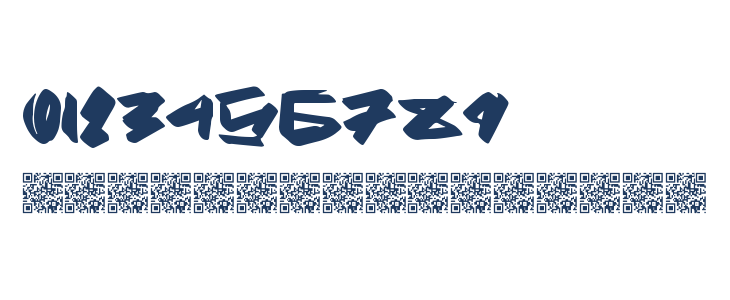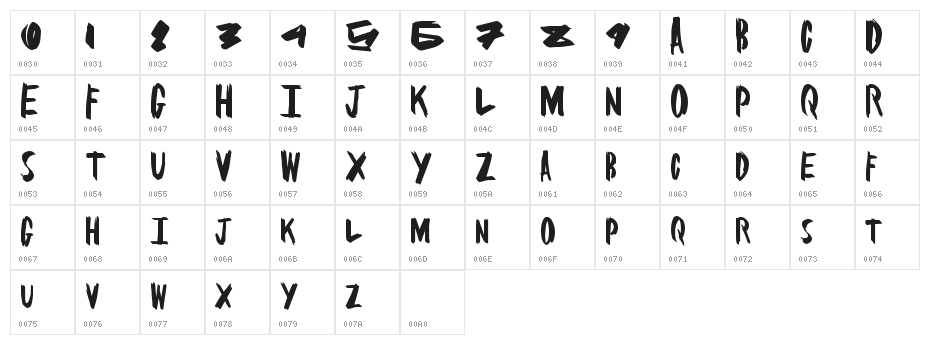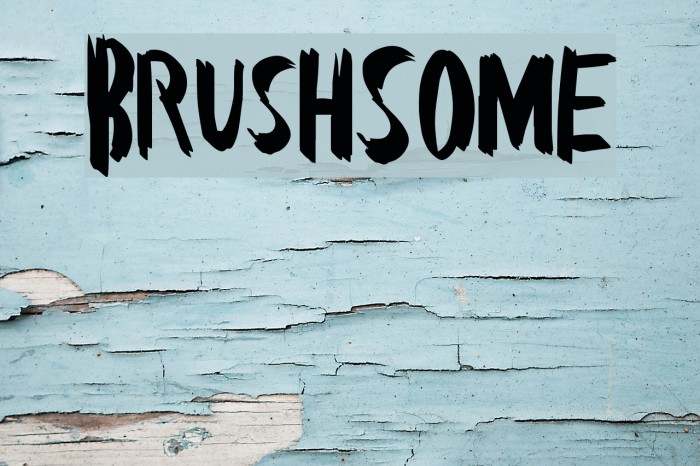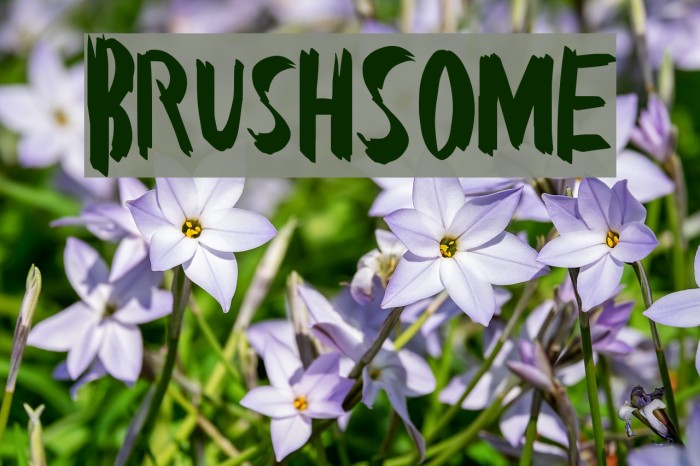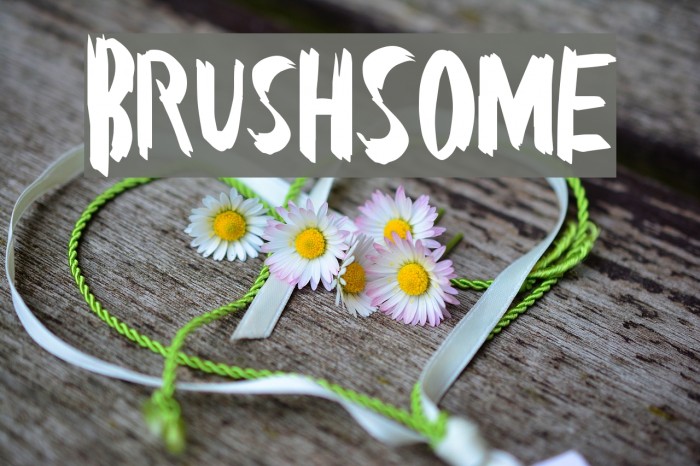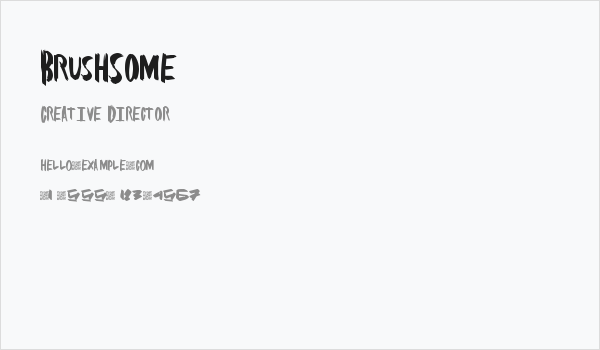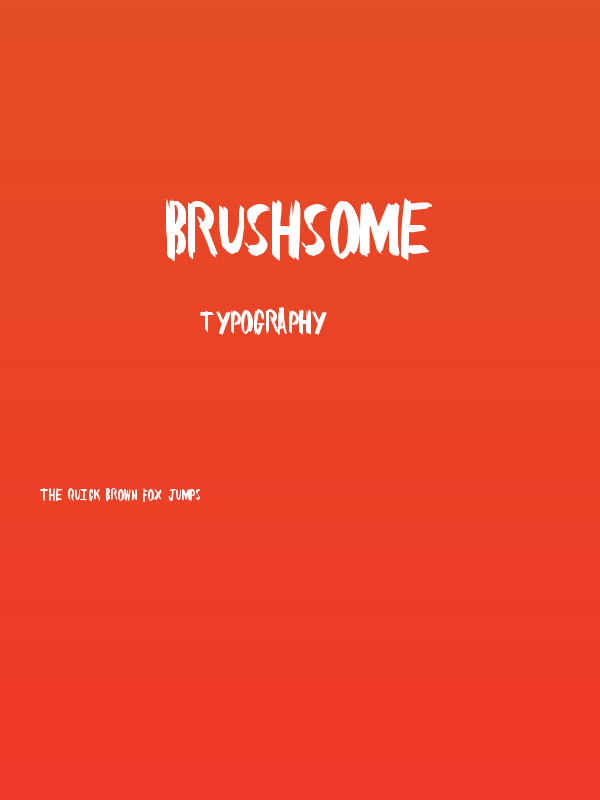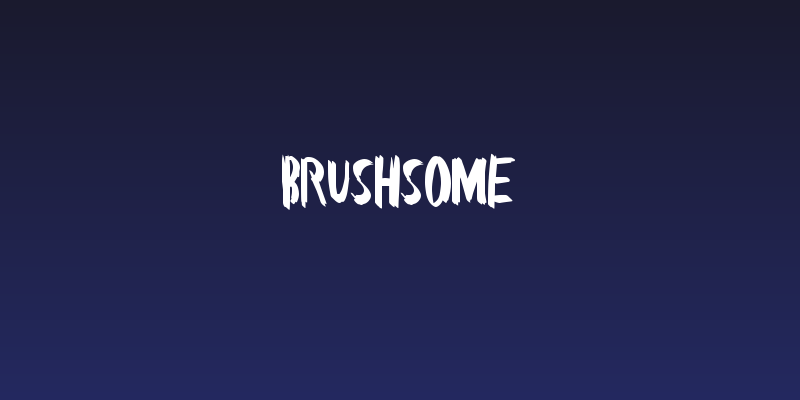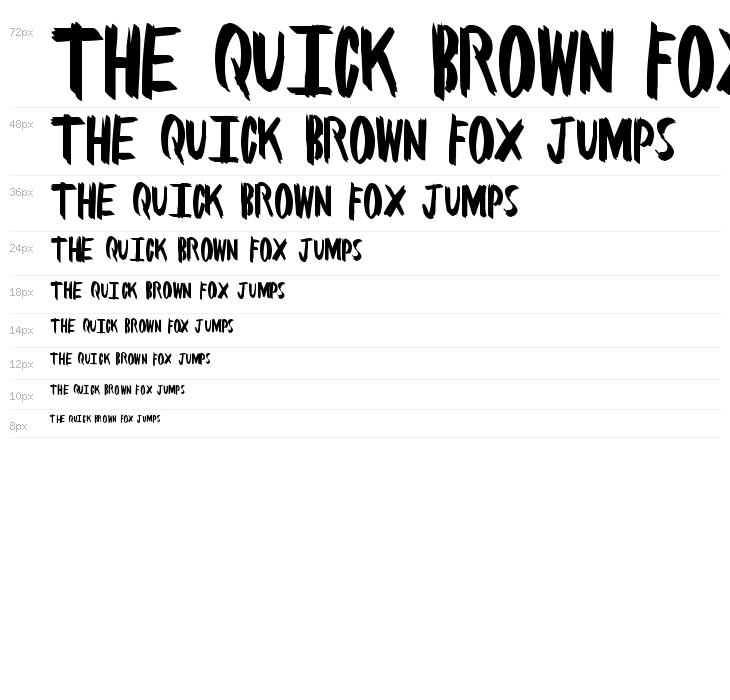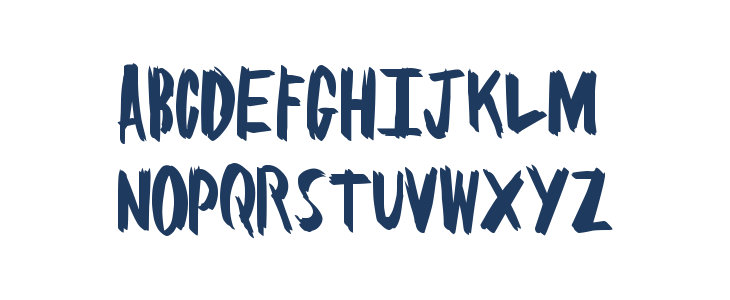
BrushSome Font
BrushSome Description
This font features a bold, brush-like style that exudes energy and dynamism. The strokes are thick and uneven, mimicking the natural texture of brush painting. Each character has a unique, hand-crafted appearance, with jagged edges and varying stroke widths that add to its raw, artistic feel. The uppercase letters are particularly striking, with a sense of movement and spontaneity. The numbers and special characters maintain the same energetic style, ensuring consistency across all glyphs. This font is perfect for projects that require a bold, artistic touch, such as posters, album covers, or branding for creative industries.
| Proposed Projects | Ideal for posters, album covers, branding for creative industries, and any project needing an artistic flair. |